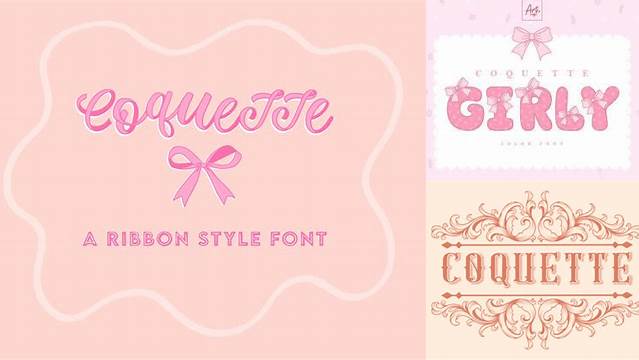
Coquette Fonts & Symbols: Your Guide To Girly Typography
Hey everyone! Let's dive into the delightful world of coquette fonts and symbols! If you're into all things feminine, flirty, and a little bit extra, you're in the right place. We're going to explore the fonts that capture that playful essence, the symbols that add a touch of whimsy, and how you can use them to create designs that scream "adorable." Get ready to sprinkle some sugar, spice, and everything nice into your typography game! This comprehensive guide will cover everything from understanding the coquette aesthetic to finding the perfect fonts and symbols for your projects, giving you the knowledge and tools to create designs that are both visually appealing and on-trend. Whether you're a seasoned designer or just starting, this is your ultimate resource for all things coquette.
The Allure of Coquette Aesthetics: Defining the Playful Style
Alright, before we jump into the specifics of coquette fonts and symbols, let's chat about the aesthetic itself. What exactly does "coquette" mean in the context of design? Think of it as a celebration of all things girly, with a hint of vintage charm and a dash of unapologetic femininity. It's about embracing delicate details, soft colors, and a sense of playfulness. It's a style that often features elements like bows, hearts, lace, and other romantic motifs. The overall vibe is light, airy, and a little bit dreamy. Coquette design aims to evoke feelings of sweetness, nostalgia, and a touch of flirtation. It’s about expressing a sense of delicate elegance while maintaining a playful and approachable feel. The coquette aesthetic isn't just about visual elements; it is a mindset, an expression of confidence and self-love that shines through in every design element. Coquette embraces the charm and vulnerability of femininity and blends it with a modern, fun twist. The design aesthetic frequently leverages a muted and soft color palette, favoring pastels and gentle hues, enhancing the overall romantic and dreamy effect. This combination of visual and emotional elements creates a design style that is both beautiful and inviting, offering a unique and compelling experience. The choice of colors and design elements is crucial in creating a visual language that effectively communicates the coquette ethos. It's a style that’s all about celebrating the joy of being a girl, with all its complexities and nuances.
Unveiling the Best Coquette Fonts: Top Choices for Girly Designs
Now, let's get to the good stuff: coquette fonts! Choosing the right font is critical for capturing the coquette vibe. You want fonts that are delicate, elegant, and maybe a little bit whimsical. Think of fonts that would look good on a vintage postcard, a handwritten love letter, or a sweet shop sign. Some popular options include script fonts with elegant flourishes, fonts with rounded shapes and soft curves, and fonts that have a handwritten feel. Script fonts are excellent for adding a touch of sophistication and romance. Fonts with rounded shapes are great for creating a friendly and approachable feel, while fonts with a handwritten feel add a personal touch. The key is to choose fonts that reflect the overall aesthetic and communicate the essence of playfulness and femininity. When picking coquette fonts, the goal is to find typefaces that embody softness and elegance while remaining legible and engaging. This selection should encompass a variety of styles, including those that are delicate, whimsical, and even slightly vintage. These typefaces should complement a variety of design elements such as colors, imagery, and layout, ensuring harmony across your design. Consider how the font appears in different sizes and weights, and whether it will align with your design goals. In addition to script fonts, look for fonts with decorative elements such as serifs and elegant curves. These fonts are designed to enhance the overall visual appeal of your designs, and they can infuse a special touch of beauty and style.
The Elegance of Script Fonts: Perfecting the Romantic Touch
Script fonts are the absolute stars of the coquette font world. They're all about flowing lines, graceful curves, and a sense of effortless elegance. Think of them as the typography equivalent of a beautiful handwritten note. Look for script fonts with delicate swirls, subtle variations in stroke weight, and a generally feminine feel. These fonts work exceptionally well for headings, quotes, and any text that you want to stand out and feel special. The aim is to choose a script font that reflects the coquette aesthetic through the way it conveys a sense of refinement and flair. The selection of an appropriate script font can significantly enhance the overall look and feel of a design, providing an extra touch of elegance and grace. It is essential to ensure that the font has sufficient legibility, enabling your message to be easily understandable. The finest script fonts offer a combination of beauty and practicality, making them perfect for creating a romantic or whimsical atmosphere. They will greatly enrich any design, improving its overall aesthetic attractiveness and making it more captivating to the viewer. Script fonts can bring a refined touch to any design project, creating a sophisticated aesthetic that enhances appeal and impact.
Rounded and Playful Fonts: Adding a Touch of Whimsy
If you want to inject a little bit of fun and playfulness into your designs, rounded fonts are the way to go. They're all about soft edges, friendly curves, and a generally approachable feel. Think of fonts that look like they belong on a children's book cover or a cute café sign. Rounded fonts are perfect for creating a sense of warmth and approachability. They're great for body text, headlines, and anything else that you want to feel welcoming and inviting. Consider the balance of thickness and shape when choosing rounded fonts for your projects. The design should reflect the coquette style by conveying a sense of lightheartedness and approachability. The utilization of rounded fonts will transform your designs into inviting and pleasant experiences. When you combine these with other design elements, you can enhance the look, giving it a lighthearted feel. They provide an inviting and delightful touch to your projects and help in making the overall design more engaging and appealing.
Handwritten Fonts: Injecting Personal Charm into Your Design
Handwritten fonts are all about adding a personal touch. These fonts mimic the look of real handwriting, adding a sense of authenticity and charm. They're perfect for adding a little bit of personality to your designs. Choose fonts that have a natural, slightly imperfect feel. Handwritten fonts are fantastic for creating a sense of intimacy and warmth. They're great for quotes, captions, and any text that you want to feel personal and genuine. The essence of handwritten fonts lies in their capacity to connect with an audience on a deeper, more emotional level. When picking handwritten fonts, consider the balance between readability and originality. The finest handwritten fonts harmonize with the coquette style by creating a genuine and charming touch. They can significantly enhance your designs, making them both beautiful and memorable. The use of handwritten fonts brings a personal and inviting touch to your designs, transforming them into a more engaging and emotionally resonant experience.
Coquette Symbol Selection: Embellishing with Girly Icons
Okay, let's move on to the delightful world of coquette symbols! These are the little details that add a touch of whimsy and personality to your designs. Think of them as the sprinkles on a cupcake – they make everything a little bit sweeter. Common coquette symbols include hearts, bows, stars, flowers, and other romantic motifs. They can be used as decorative elements, to add emphasis to certain text, or to create a sense of overall design. The idea is to use symbols that capture the essence of playfulness and femininity, like hearts, bows, stars, and flowers. Coquette symbols add a delicate touch to designs and can increase visual appeal. They are an excellent method for enhancing your design. These symbols complement the coquette aesthetic, increasing visual appeal. They are effective in enhancing the overall design and giving it a lighthearted and elegant atmosphere.
Hearts and Bows: The Ultimate Coquette Duo
Hearts and bows are the quintessential coquette symbols. They're the ultimate expression of love, sweetness, and all things girly. Hearts can be used in countless ways, from simple outlines to intricate designs. Bows add a touch of elegance and playfulness. Use them to decorate headings, create borders, or add a touch of whimsy to your text. When it comes to hearts and bows, the possibilities are endless. Hearts and bows are the heart of the coquette aesthetic, reflecting love, sweetness, and the joy of girlhood. They bring an element of innocence and playfulness to design, making it more attractive and engaging. These symbols are essential for expressing the essence of the coquette aesthetic, making your designs even more captivating.
Stars, Flowers, and More: Adding a Touch of Whimsy
Beyond hearts and bows, there's a whole universe of coquette symbols to explore. Stars add a touch of magic and sparkle. Flowers bring a sense of natural beauty and femininity. Consider incorporating other symbols that reflect your personality and aesthetic. These symbols add a sense of whimsy and playfulness. They can be used to create borders, decorate headings, or add visual interest to your designs. You can add more symbols such as stars and flowers to showcase the beauty and complexity of your design, and to make it more captivating. Using a mix of symbols helps to create depth and personality, making designs more interesting and engaging. These will help you create designs that are both visually appealing and engaging, making your designs even more alluring.
Incorporating Symbols Seamlessly into Your Design
Now, how do you actually use these coquette symbols in your designs? Think about the overall composition and how the symbols will complement your text and other design elements. You can use symbols as decorative elements, to add emphasis, or to create a sense of overall design. The idea is to use symbols in a way that feels natural and enhances the overall aesthetic. Consider the size, color, and placement of your symbols. The finest designs use symbols smoothly to make them feel like a natural extension of your theme. These symbols are key in enhancing the allure and aesthetic of your creations, and they also help in capturing the hearts of those who view them. This helps in making designs visually attractive and harmonizes with other design components. Ensure symbols are harmonious and add beauty to your work. This technique can help create a design that is visually appealing and captures the essence of the coquette style.
Pairing Fonts and Symbols: Harmonious Design Combinations
Alright, so you've got your coquette fonts and symbols ready to go. Now, how do you put them together to create a cohesive design? The key is to consider the overall aesthetic and how the fonts and symbols will work together to tell a story. Think about the tone you want to create and the message you want to convey. Combine fonts and symbols in a way that feels natural and enhances the overall design. You want to achieve a design that is harmonious, balanced, and visually appealing. A strong pairing will improve the visual experience, and it will help convey your message to your audience. Consider the colors and layout of the design to create a design that embodies the essence of the coquette style.
Mixing and Matching Fonts: Balancing Styles for Impact
When it comes to mixing and matching fonts, balance is key. You don't want to use too many different fonts, as this can make your design look cluttered and confusing. Instead, choose a few fonts that complement each other well. A good rule of thumb is to use one font for headings and another font for body text. Consider combining a script font with a sans-serif or serif font to create a balanced and visually appealing design. Ensure the fonts work together and match your brand's overall aesthetic. Mixing different types of fonts can enhance the overall impact of your designs by adding visual appeal and personality. This technique should include both readability and visual aesthetics, and it should contribute to an engaging user experience. The combination of fonts adds interest and depth to a design. This technique also adds personality to your designs and reflects your aesthetic.
Integrating Symbols with Your Chosen Fonts
Now, how do you integrate your chosen coquette symbols with your fonts? Think about the overall composition and how the symbols will complement your text. You can use symbols as decorative elements, to add emphasis, or to create a sense of overall design. The idea is to use symbols in a way that feels natural and enhances the overall aesthetic. Ensure the symbols and fonts complement each other, creating a cohesive and visually appealing design. The goal is to create a design that is both visually appealing and representative of the coquette style. By thoughtfully combining fonts and symbols, you can enhance your designs, making them captivating and engaging. This will help create harmony and balance in your designs.
Color Palette Considerations: Enhancing the Coquette Vibe
Color is crucial for capturing the coquette vibe. Think of soft pastels, delicate pinks, and other feminine hues. The choice of color will help establish the tone of the design, and it will enhance the overall aesthetic. Consider the color palette and how it will work with the fonts and symbols. Use colors that are light, airy, and a little bit dreamy. This will help you create a design that feels soft, feminine, and romantic. Color is a key element in design, and using the right colors can add character and charm. Make sure the colors you choose go well with your brand's overall aesthetic. Your design's attractiveness, and the emotions it provokes can all be influenced by using color correctly. Choosing colors that reflect the coquette aesthetic will help you create designs that are both visually appealing and on-trend.
Applications of Coquette Fonts and Symbols: Where to Use Them
Where can you actually use these coquette fonts and symbols? The possibilities are endless! Think about everything from social media posts to website designs, from invitations to packaging, and much more. The coquette aesthetic is perfect for a variety of projects, adding a touch of sweetness and charm. Coquette fonts and symbols can be used in a variety of applications. They add a unique and playful touch to your designs, creating engaging visual experiences. Whether for a personal project or a professional one, coquette designs add to the overall aesthetic. This is a great way to captivate your audience and create eye-catching designs. In this section, we'll explore different applications where these fonts and symbols can shine.
Social Media Graphics: Crafting Captivating Content
Coquette fonts and symbols are perfect for social media! They're all about creating visually appealing content that captures attention and engages your audience. Use them for Instagram stories, Pinterest pins, and Facebook posts. Create eye-catching graphics, quotes, and announcements. Create a consistent and visually appealing brand identity. You can also use coquette designs to promote products, services, or events. They are a great way to grab your audience's attention and make your social media presence stand out. Use coquette fonts and symbols on various social media platforms to create a cohesive aesthetic. Whether it's through Instagram posts or Pinterest pins, coquette fonts and symbols help you make your content pop. This helps build brand recognition and a stronger connection with your audience.
Website Design: Creating a Feminine Online Presence
Want to create a website that's both beautiful and user-friendly? Coquette fonts and symbols can help! Use them for your website's branding, headers, and other design elements. Consider using a script font for your website's logo, a rounded font for headings, and a handwritten font for body text. Use these elements to give your website a cohesive and aesthetically pleasing design. Create a unique and memorable online experience. These elements can assist in creating a welcoming and aesthetically pleasing online presence. The coquette aesthetic is excellent for establishing a warm and inviting atmosphere, improving user engagement. Website design with coquette components helps in developing a user-friendly and visually attractive interface. Coquette fonts and symbols can also be used to create unique and engaging website layouts. These can elevate your website's overall design and help establish a strong brand identity.
Invitations and Stationery: Designing Sweet and Special Pieces
Looking to design invitations or stationery that are sweet and special? Coquette fonts and symbols are your perfect allies! Use them to create invitations for weddings, birthdays, and other special occasions. Use a script font for the invitation's name and details, a rounded font for the date and time, and a handwritten font for a personal touch. Use a variety of symbols to enhance the overall design, such as hearts, bows, and flowers. Create stationery that's both elegant and personal. These can help add a delicate touch, making each piece special and memorable. Whether it's a wedding invitation or a simple thank-you note, coquette fonts and symbols will help enhance the tone of your project, making it more personalized and engaging. Coquette fonts and symbols offer an excellent method to design invitations that are both visually appealing and stylish, and stationery that is memorable.
Resources for Finding Coquette Fonts and Symbols: Where to Start
Alright, so you're ready to start creating with coquette fonts and symbols? Awesome! But where do you find them? There are tons of resources out there, from free font websites to premium design platforms. Let's dive into some of the best places to discover coquette fonts and symbols. These resources provide a broad selection to suit your design requirements and enhance your creative efforts. The resources will help you in finding fonts and symbols. They give you a starting point and allow you to discover more coquette aesthetics. This part will provide you with all the tools you require to start creating lovely designs and start your creative journey. Let's discover some useful resources for gathering coquette fonts and symbols.
Free Font Websites: Exploring Cost-Effective Options
If you're on a budget, don't worry! There are tons of websites that offer free fonts, including many that fit the coquette aesthetic. Google Fonts is a great place to start. It offers a wide range of fonts that are free to use for commercial and personal projects. Look for script fonts, rounded fonts, and handwritten fonts. Websites like DaFont, Font Squirrel, and 1001 Fonts also offer a variety of free fonts. Consider reading the license agreements before using a free font. Always make sure to credit the font designer if required. Free font websites offer a convenient way to explore a wide variety of typefaces. These websites often feature a broad selection of fonts, including some that fit the coquette aesthetic. This allows you to experiment and discover new design possibilities without spending any money. Discovering the ideal font at no cost can elevate your design projects by providing you with accessibility to a wide variety of fonts, helping you create visually stunning designs.
Premium Font Platforms: Investing in Quality Design
If you're looking for even more options and higher-quality fonts, consider investing in premium font platforms. Creative Market and MyFonts are great places to find high-quality fonts. They offer a wide selection of coquette fonts. Purchasing fonts from these platforms can be more expensive. They offer a wide selection of fonts, including a variety of coquette-style fonts, and it's a fantastic investment. For designers, these platforms offer a broad selection of options to help with your projects. This can provide you with more variety and quality. These will improve your design work. This ensures that you have access to high-quality fonts and a wider range of styles. When it comes to finding the right font for your project, quality is crucial. These fonts are designed with attention to detail. Choosing a premium font can add polish and professionalism to your designs.
Symbol Libraries and Design Packs: Accessing Ready-Made Assets
Want to save time and effort? Consider using symbol libraries and design packs. Creative Market and Envato Elements offer a variety of pre-made assets, including coquette symbols. Using ready-made assets can be a great way to enhance the look and feel of your design. Symbol libraries and design packs provide a convenient way to quickly get the elements you need for your projects. These packs can save you time. These can greatly enhance your designs and add to the visual appeal. They will help you quickly create stunning designs without having to start from scratch. Ready-made assets provide a quick and simple method of getting the design elements. This helps speed up your design process and guarantees a polished finished product. Use these libraries and design packs to speed up the creation process and enhance the quality of your work.
Mastering the Coquette Aesthetic: Tips and Tricks
So, you've got your fonts, your symbols, and your inspiration. Now, let's talk about some tips and tricks for mastering the coquette aesthetic. The coquette aesthetic is all about embracing femininity, playfulness, and a touch of vintage charm. It's about creating designs that are both visually appealing and on-trend. Whether you're a beginner or a seasoned designer, these tips and tricks will help you create stunning coquette designs. By combining design elements, you can produce a cohesive and engaging design that captures the essence of the coquette aesthetic. By applying these tips, you can master the coquette aesthetic and produce designs that are both aesthetically attractive and trendy.
Balance and Harmony in Design: Achieving Visual Appeal
When creating coquette designs, balance is key. You want your design to be visually appealing and easy to read. Consider the layout, the color palette, and the fonts and symbols. Make sure everything works together harmoniously to create a cohesive design. Balance is achieved by appropriately organizing design elements, such as text, graphics, and spacing. Consider creating a visually appealing design by carefully arranging elements to create a sense of equilibrium and cohesion. The goal is to achieve a visually appealing, well-balanced design. This harmony enhances the overall look and makes your design more attractive. A well-balanced design ensures that the audience can easily understand the message. This is the perfect design, making the design more memorable and impactful.
Color Theory and Palettes: Selecting the Perfect Hues
Color is essential for capturing the coquette vibe. Soft pastels, delicate pinks, and other feminine hues are your best friends. Consider the color palette. Create a cohesive and visually appealing design. The colors you choose can affect the tone of your design. The correct colors will enhance the overall aesthetic. Use the color wheel to understand color combinations, and to create a palette that complements your overall design. With an understanding of color theory, you can enhance your designs and make your designs more appealing. It is essential for a design to include color combinations and palettes. Understanding color theory and selecting the perfect hues is a crucial step. When your designs contain color schemes, they will be able to engage your audience and also enhance the aesthetic appeal.
Iteration and Refinement: The Path to Perfection
Don't be afraid to experiment and refine your designs. Creating a great design is a process, and it often involves multiple iterations. Try different fonts, symbols, and color palettes. Gather feedback from others and make adjustments as needed. Iteration and refinement are a crucial part of the design process. By continuously experimenting with your designs, you can create something that looks visually pleasing. Iteration involves making improvements to a design. These improvements include making adjustments to the font, color palette, and symbols used. Feedback can also help you produce designs that are more impactful and engaging. With the right adjustments, your designs can become more attractive and effective. This process ensures that your design is optimized and fulfills its intended purpose. It contributes to a polished, professional final product.
Staying Updated with Coquette Trends: Inspiration and Inspiration Sources
Finally, let's talk about how to stay on top of the latest coquette trends. The coquette aesthetic is constantly evolving. This requires you to remain updated with current trends. Explore social media platforms like Instagram, Pinterest, and TikTok. See what's trending in the world of design and fashion. This way, you can make sure you have the most current look and feel. Look at what other designers are creating. Get inspired by the work of others, and let their ideas fuel your creativity. Following the newest trends ensures your designs are modern and relevant. When you keep up with the latest trends, it gives you the knowledge to create designs that are appealing. These will help in making your designs fresh and inspiring.
Following Design Blogs and Social Media: Gathering Inspiration Daily
Design blogs and social media are great resources for inspiration. They will also keep you updated with the latest trends. Find design blogs and social media accounts that focus on the coquette aesthetic. Explore their work, gather ideas, and see what's inspiring them. Make sure you stay updated with the most current trends. Using design blogs and social media as sources of inspiration allows you to learn and discover new trends. These provide valuable insights into the latest design trends and enable you to stay informed. By engaging with design blogs and social media, you can create a wide range of inspiration and creativity for your projects. This ensures that your projects stay fresh and engaging.
Exploring Fashion and Lifestyle: Embracing the Coquette Lifestyle
To truly master the coquette aesthetic, it's helpful to embrace the lifestyle. Look at fashion, lifestyle, and other fields. See how designers are incorporating the coquette aesthetic. The fashion world is a great source of inspiration. It will provide insights into the nuances of coquette design. The fashion and lifestyle fields offer an abundance of inspiration for the coquette aesthetic. Embracing the coquette lifestyle helps you immerse yourself in the aesthetic. This helps in enhancing your ability to produce relevant designs. This also helps in enhancing your capacity to create authentic coquette designs.
Experimenting and Creating: The Journey to Coquette Mastery
The journey to mastering the coquette aesthetic is all about experimentation and creation. Don't be afraid to try new things and to develop your own unique style. Embrace the coquette aesthetic by finding inspiration and learning the fundamentals. Make sure you can create designs that are both visually appealing and on-trend. Use what you've learned to produce your own unique style. Use your creativity to make your designs stand out. Practice and enjoy the process of design. This will help you create designs that are beautiful and engaging. By continuously experimenting and embracing your creativity, you can truly master the coquette aesthetic.